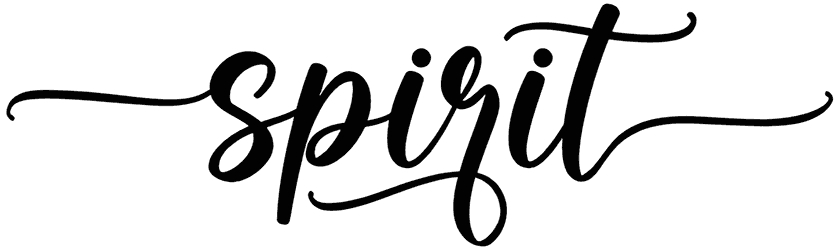
Spirit Font
Spirit’s unique combination of beauty and functionality in this calligraphy font makes it a versatile tool. You can use this script font for everything from official documents to casual websites, wedding invitations, and book covers.
Every letter in this romantic font is made with care, which turns every word into an absolute masterpiece. So let the spirit take you out of the digital space and get her a little more involved with the project by adding a personal touch to your writing.